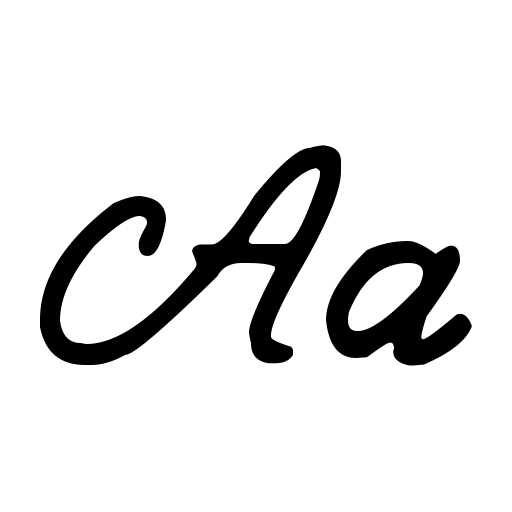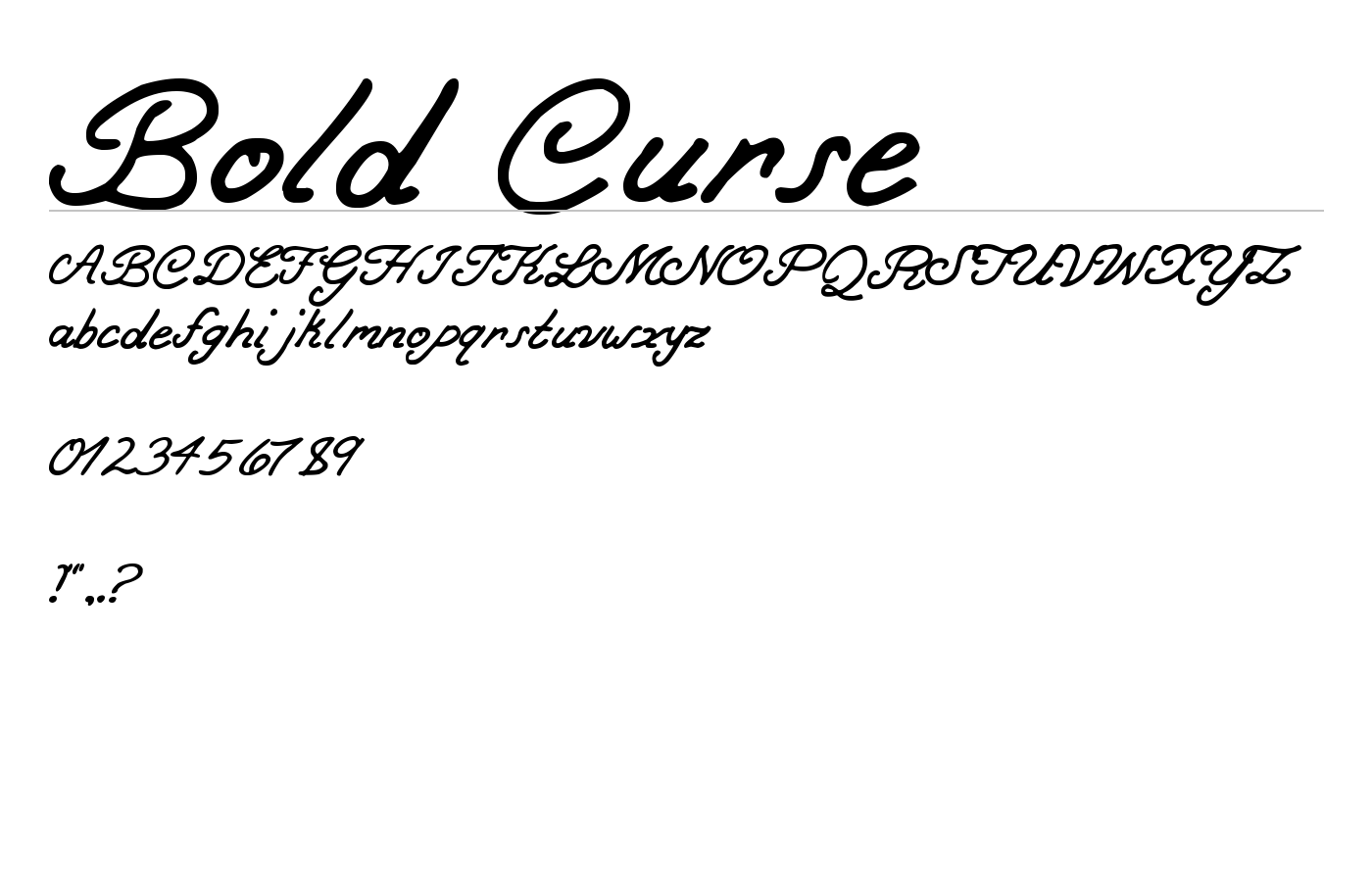
Bold Curse Font is a bold, cursive script that combines a casual handwritten feel with strong presence. Its thick strokes and smooth, flowing letterforms make it ideal for creative and personal branding, invitations, and headlines where a lively yet confident style is desired. The font’s playful elegance works well in designs needing a touch of warmth and personality without sacrificing readability.
Bold Curse Font
About Bold Curse Font